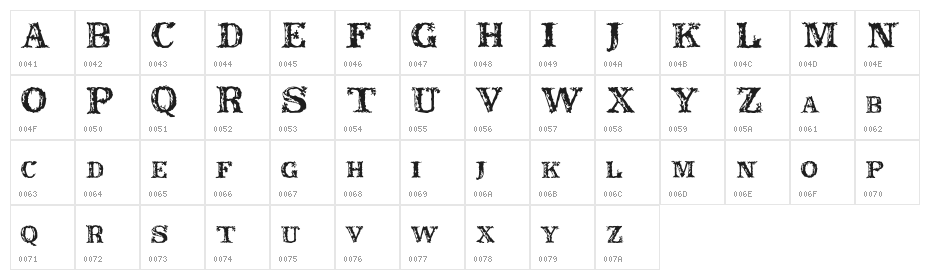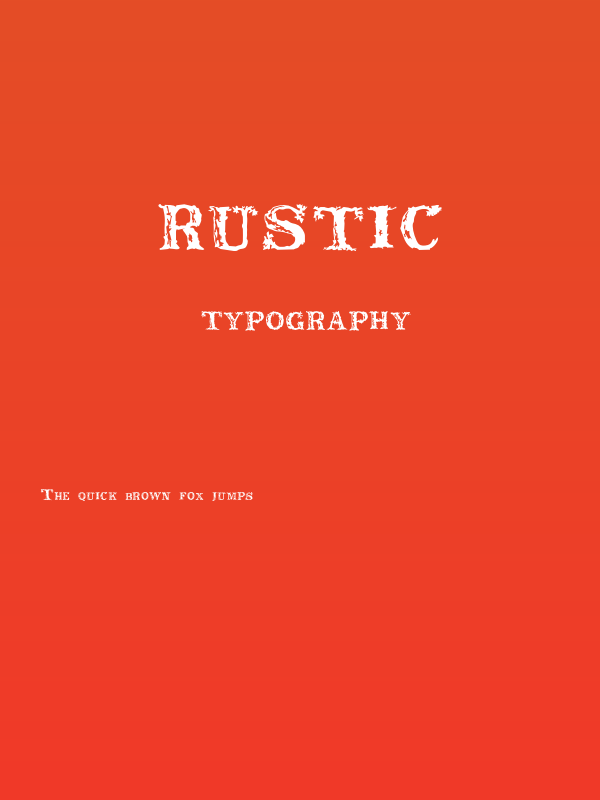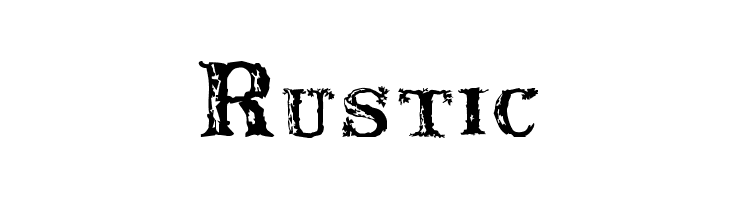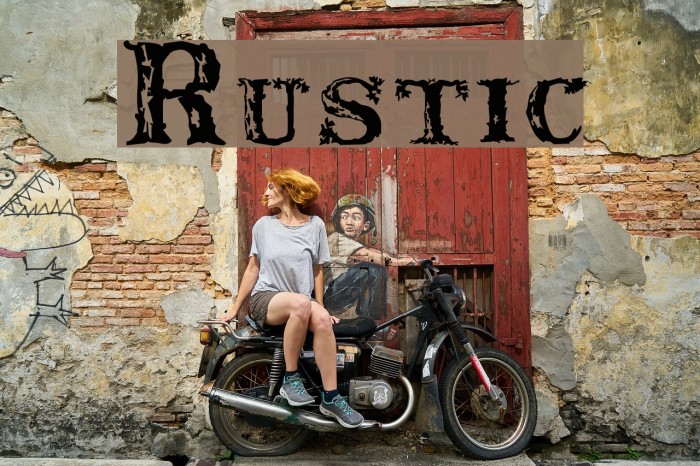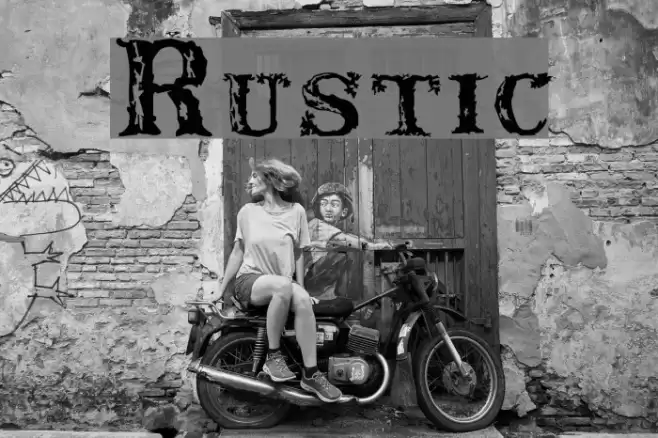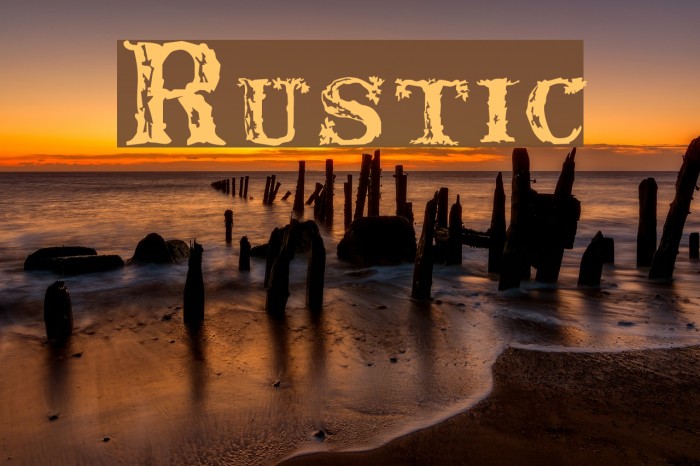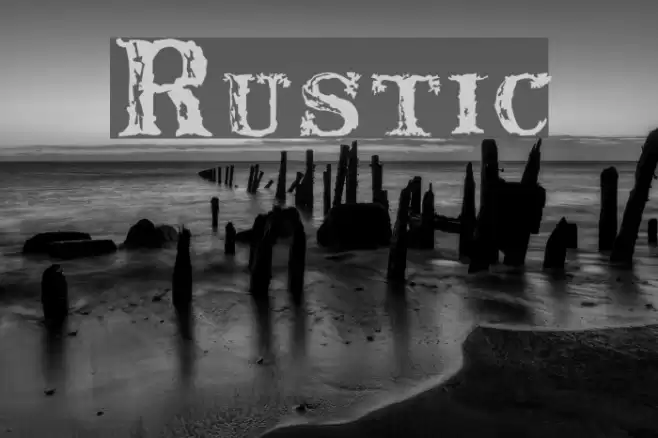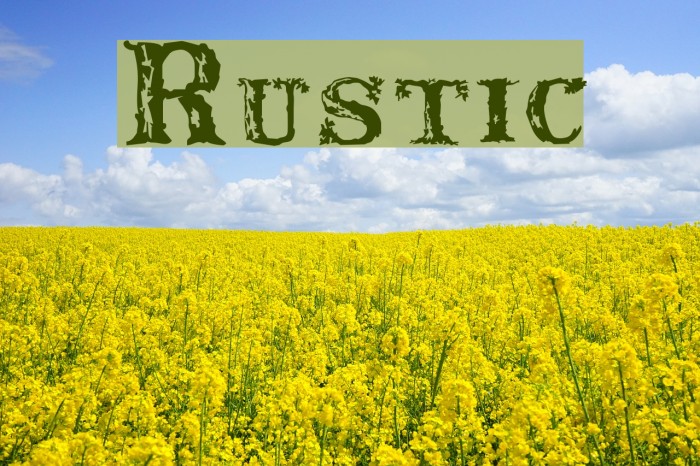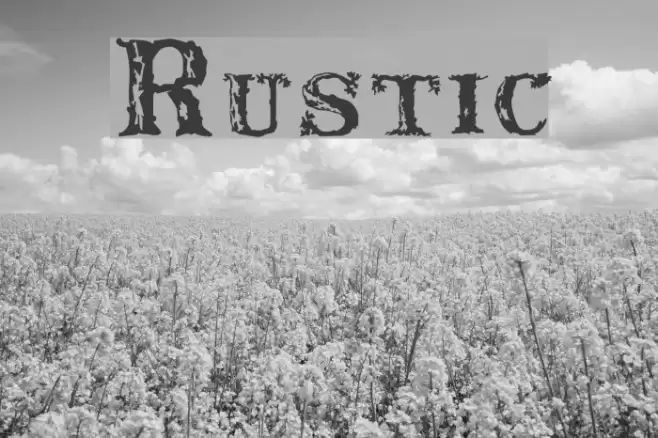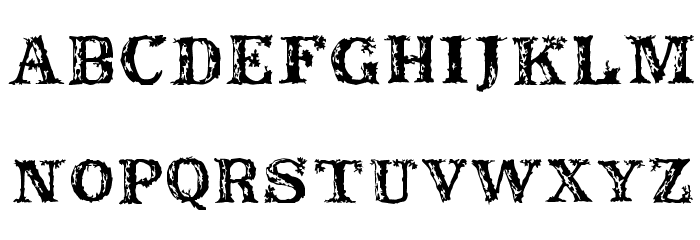
Rustic Font
Rustic Description
This font exudes a rugged, distressed aesthetic, reminiscent of weathered wood or aged metal. The characters are bold and feature a textured, uneven surface that gives them a rustic, handcrafted feel. The edges are irregular, adding to the organic and natural appearance. This style is perfect for conveying a sense of authenticity and vintage charm. The uppercase letters are prominent and eye-catching, making them suitable for impactful headlines or titles. The overall design suggests a connection to nature or a bygone era, ideal for projects that aim to evoke nostalgia or a rustic ambiance.
| Overall Style | Rustic, Vintage |
| Proposed Projects | Ideal for vintage-themed posters, rustic branding, outdoor event invitations, or any project seeking an authentic, handcrafted look. |